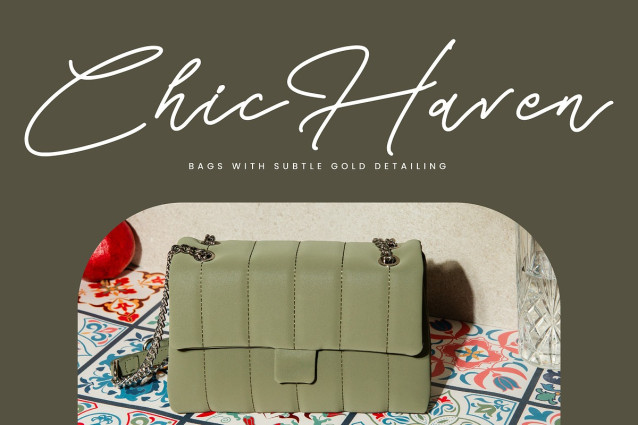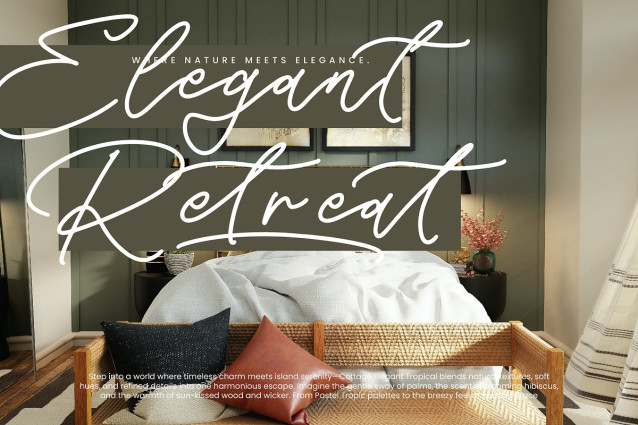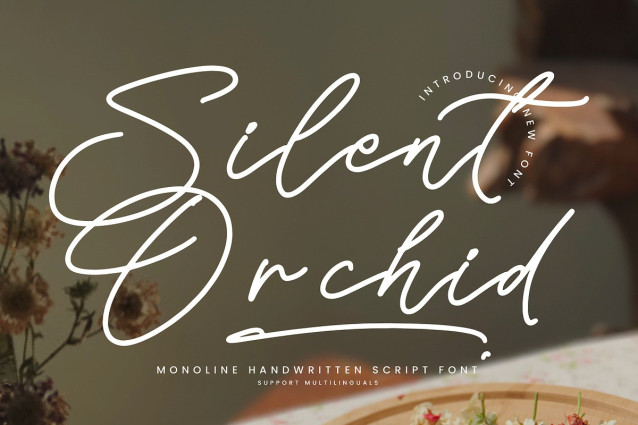
Silent Orchid Font
Silent Orchid Font – Monoline Handwritten Script Font, from Integritype Studio, perfect for any project like: logos, branding projects, homewares designs, product packaging, mugs, quotes, posters, shopping bags, t-shirts, covers books, business cards, invitation cards, greeting cards, labels, photography, watermarks, special events and all your other luxury projects that require a premium taste.